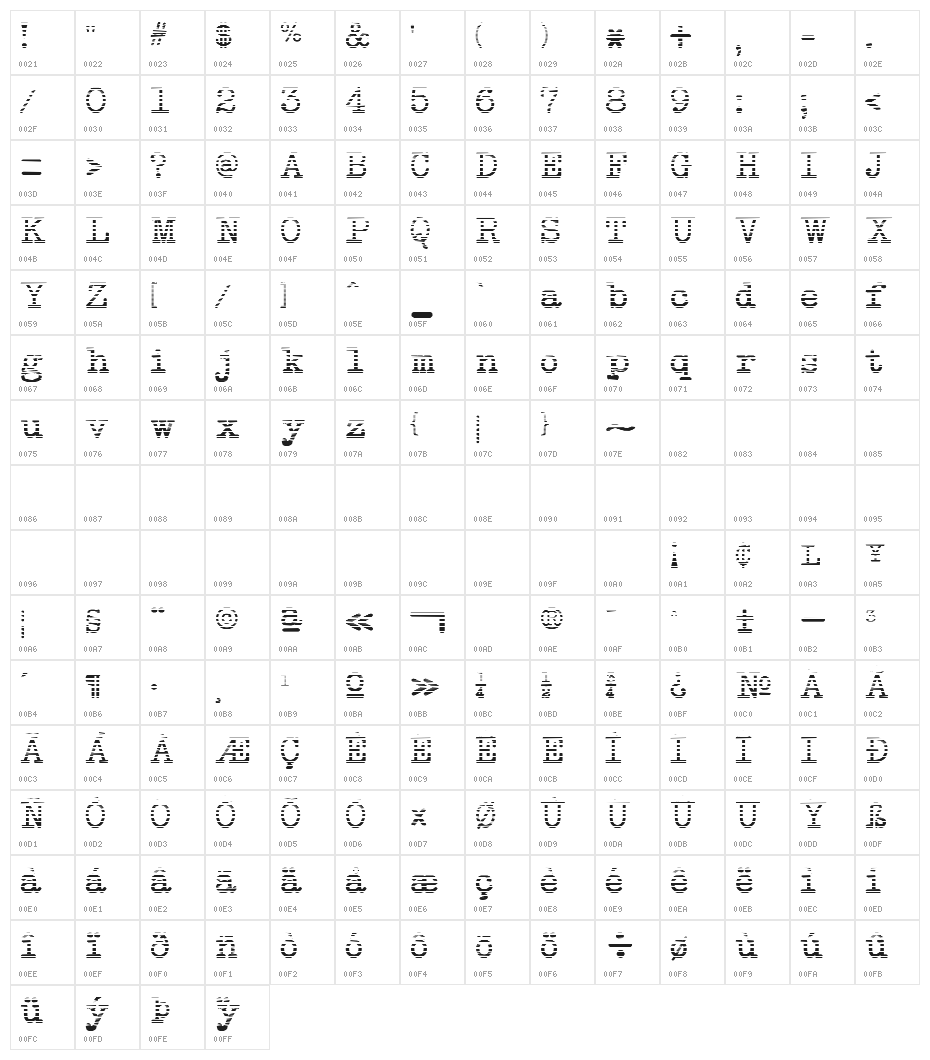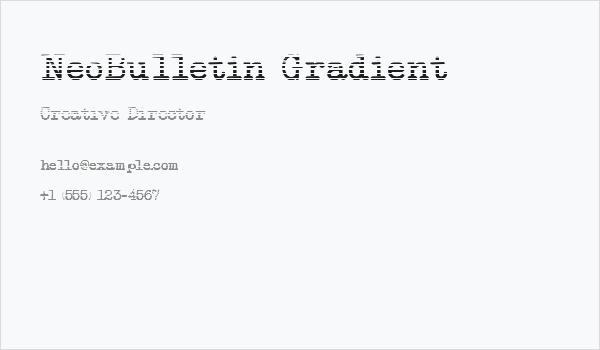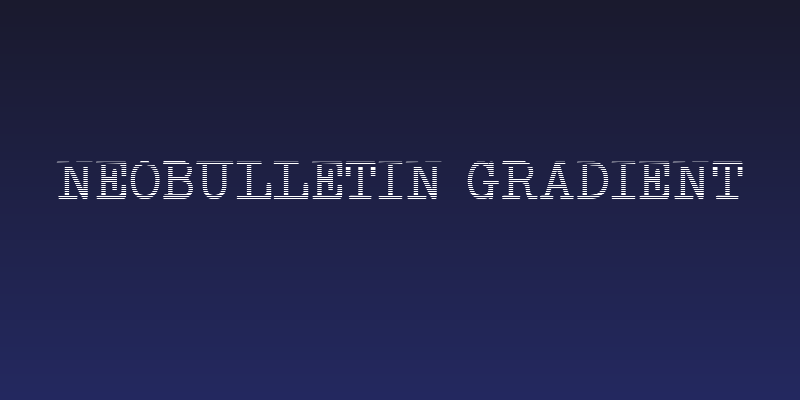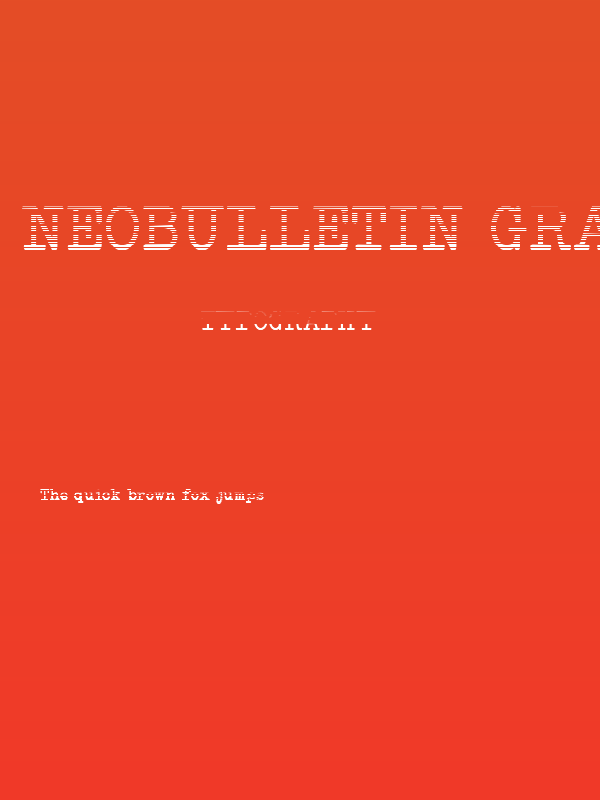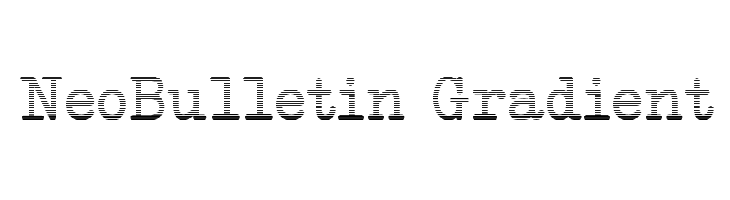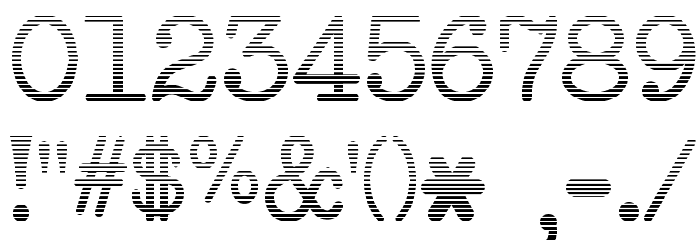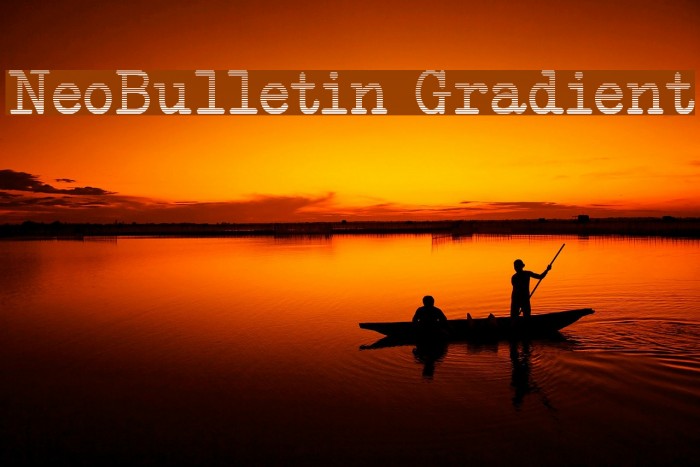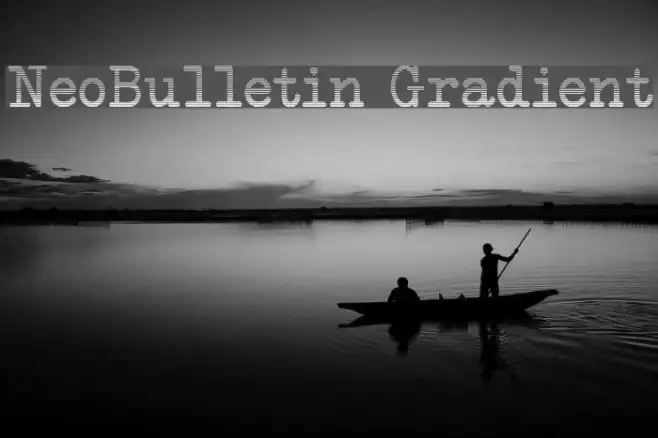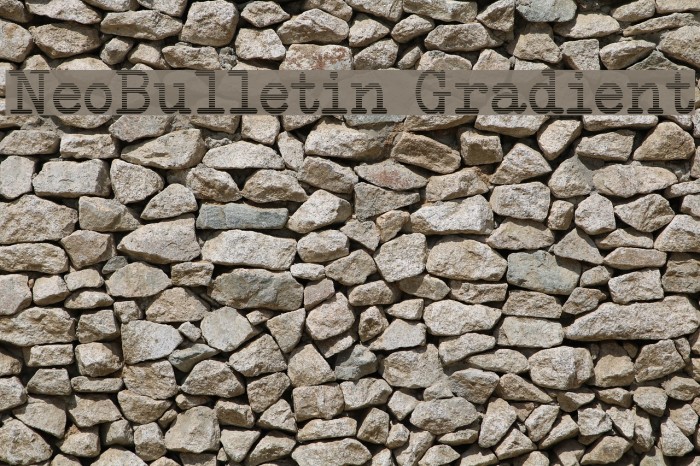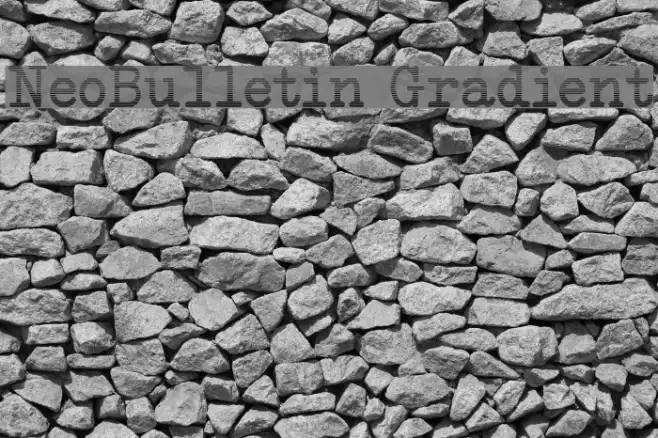
NeoBulletin Gradient Font
NeoBulletin Gradient Description
This font features a distinctive striped pattern across each character, creating a unique gradient effect. The uppercase and lowercase letters maintain a consistent serif style, with bold, pronounced serifs that add a touch of elegance and formality. The numbers and special characters follow the same design, ensuring uniformity across all elements. The striped pattern gives the font a modern, edgy feel, making it stand out in any design. The spacing between characters is normal, allowing for clear readability while maintaining its decorative appeal. This font is ideal for projects that require a bold statement, combining traditional serif elements with a contemporary twist.
| Proposed Projects | Ideal for headlines, posters, branding, and any design that requires a bold, eye-catching font. |